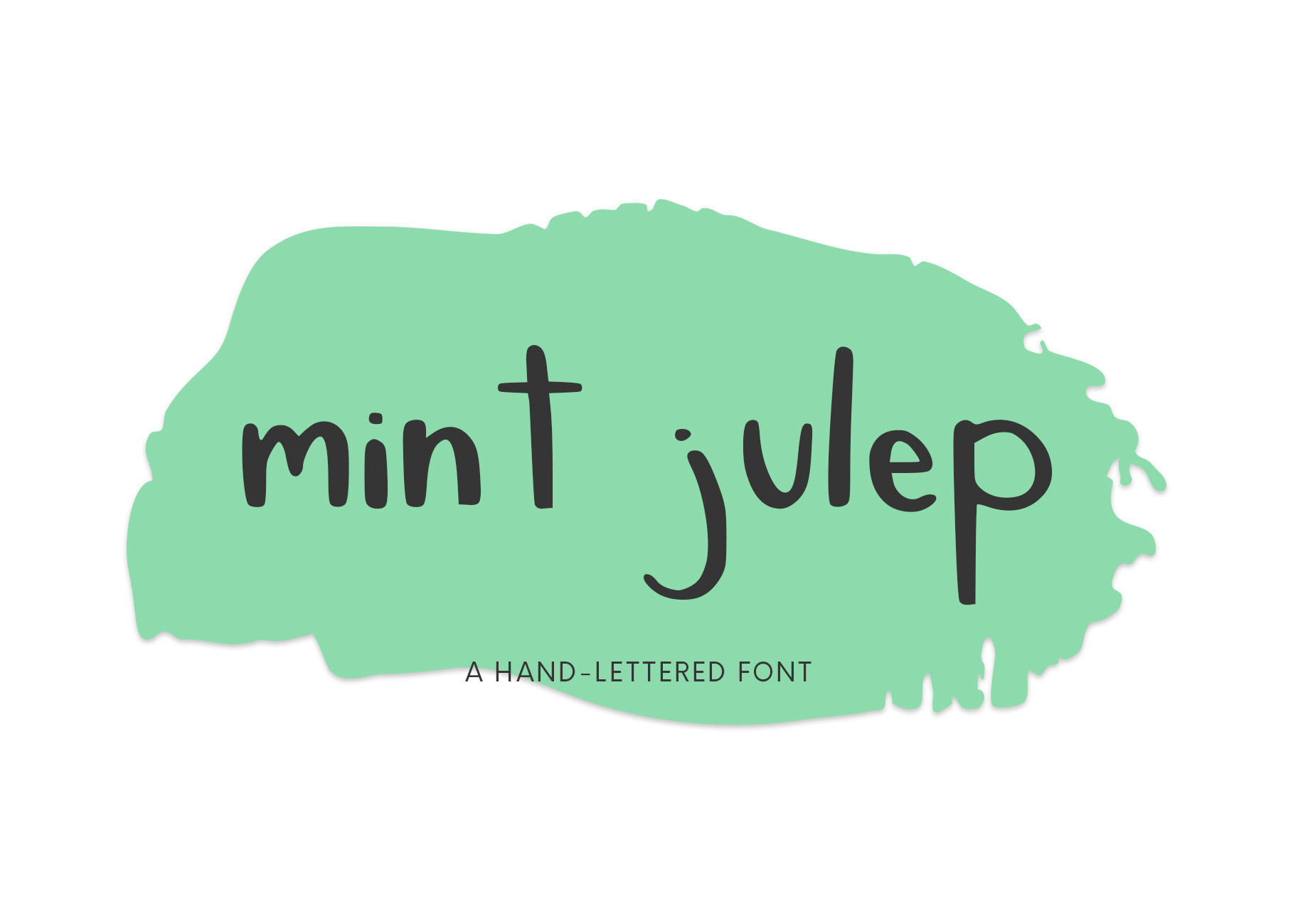
Mint Julep, A Hand-Lettered Font
A brand new typeface that's perfect for all sorts of graphic design projects. Including web design, branding, stationery design, logos, banners and more!